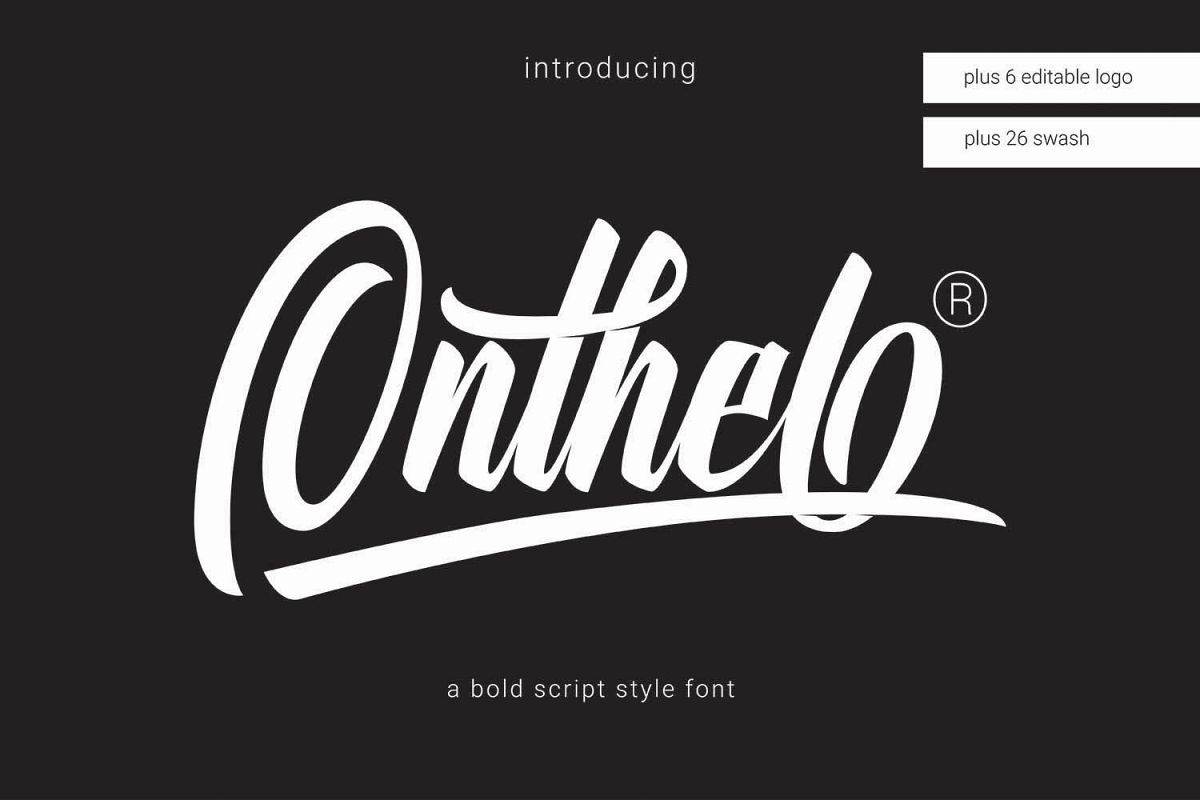
Onthel
We introduce the ‘Onthel’ font. This font is inspired by Onthel Bicycles, this is a Dutch design bicycle that is characterized by an upright sitting position and has a very strong and high-quality reputation.here’s the Onthel font. a bold-script with a touch of rhythmic brush that is very charming and has character.Onthel fonts have many alternate, 3-4 alternates choices for uppercase and 5-7 choices for lowercase. This font is also equipped with a liggature and 26 swash to strengthen the brush stroke character.please install ‘Onthel Swash’. now you only need to press A-z on your keyboard to display swash.What else? we also give you a bonus 6 editable.Why? because this font is logotype font, it is nice for branding your products and business, this character is suitable for the types of business that is masculine and sports that encourage adrenaline.Finally … we thank you for looking at our products, hope you are interested, please leave a message if you need further assistance and please give a sweet rating.